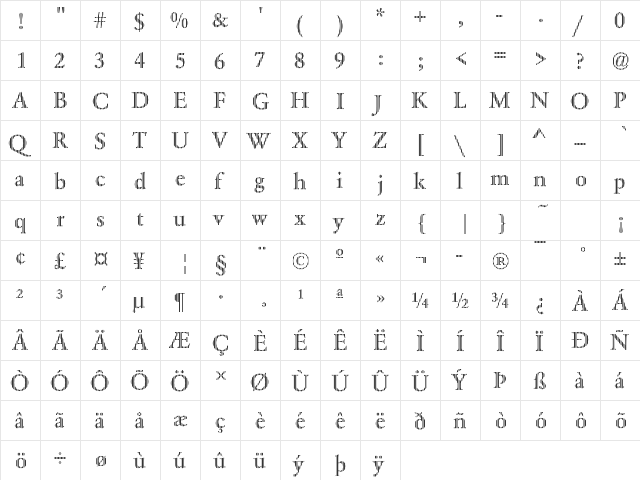
DTCGaramondM01 Regular
Design Context for DTCGaramondM01 Typeface
DTCGaramondM01 is a composed and adaptable typeface that performs quietly and consistently across a wide range of design contexts.